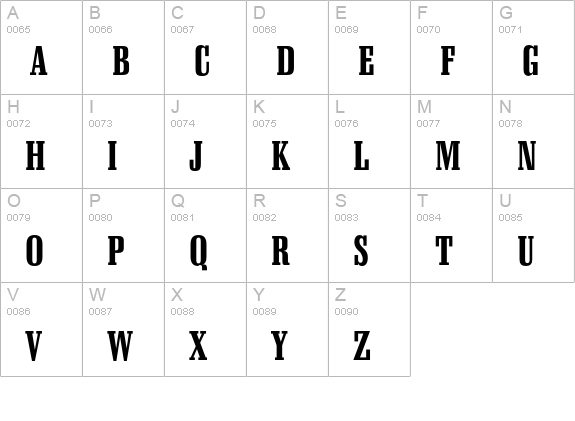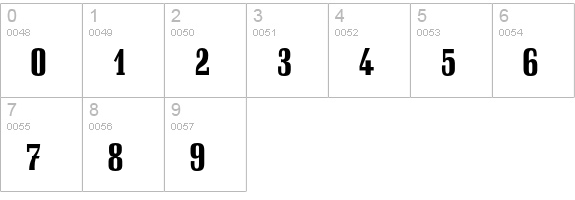
Schadow Black Condensed Font Details
Schadow Black Condensed is a maximum-weight, dramatic, condensed-width variant in the Schadow typeface family \xE2\x80\x94 well suited to maximum-impact headlines, posters, and packaging.
Schadow Black Condensed font is a stunning, bold typeface that exudes sophistication and elegance. With its sleek lines and sharp edges, this font is perfect for making a bold statement in any design project. Whether you're creating a modern logo, a stylish headline, or a sleek poster, Schadow Black Condensed font is sure to grab attention and leave a lasting impression. This font features a condensed design, which allows for maximum impact in a minimal amount of space. The letters are slightly elongated, adding a touch of elegance and refinement to the overall aesthetic. The thick strokes and clean curves create a sense of strength and power, making this font ideal for projects that require a bold and commanding presence. But what makes Schadow Black Condensed font truly special is that it is available for free. That's right, this premium-quality font can be downloaded at no cost from FontsMarket.com. Whether you're a professional designer or a passionate hobbyist, having access to high-quality fonts can make a world of difference in your creative endeavors. And with Schadow Black Condensed font, you can elevate your designs to new heights without breaking the bank. So, why wait? Go ahead and download Schadow Black Condensed font today and unleash your creativity. With its bold and powerful design, this font is sure to make a statement in any project. Whether you're designing a logo, creating a poster, or crafting a headline, Schadow Black Condensed font will help you stand out from the crowd. And the best part? It's completely free to download at FontsMarket.com. Don't miss out on this incredible opportunity to enhance your designs with a premium-quality font. Get Schadow Black Condensed font now and let your creativity shine.